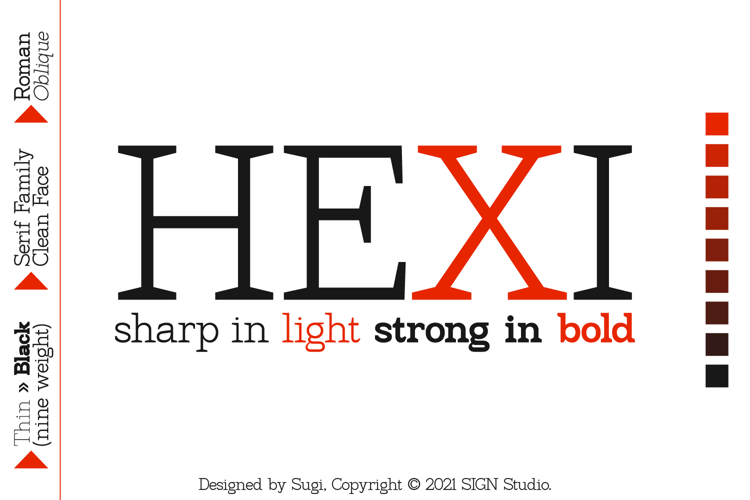
Hexi Font
Hexi is a modern style serif font. It has 9 thicknesses (Thin to Black) to provide more support when designing and also Oblique version to give your texts more different or contrast.
Have bold serifs to reduce the pixel effect on digital devices.
Minimized the nodes in each design to keep the glyphs bodies clean.
Give the extrema point on each curve, it will make Hexi look smooth and neat.